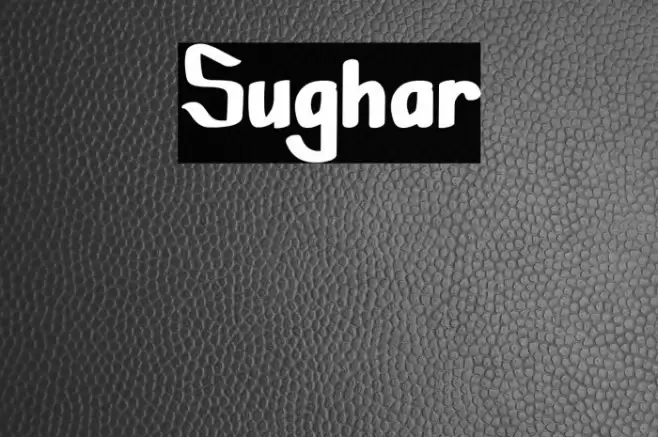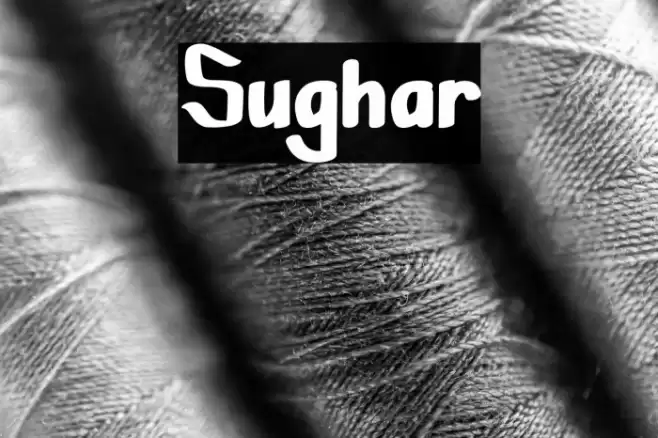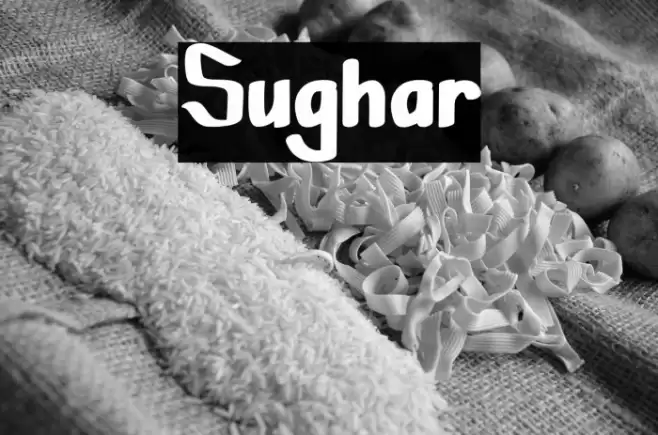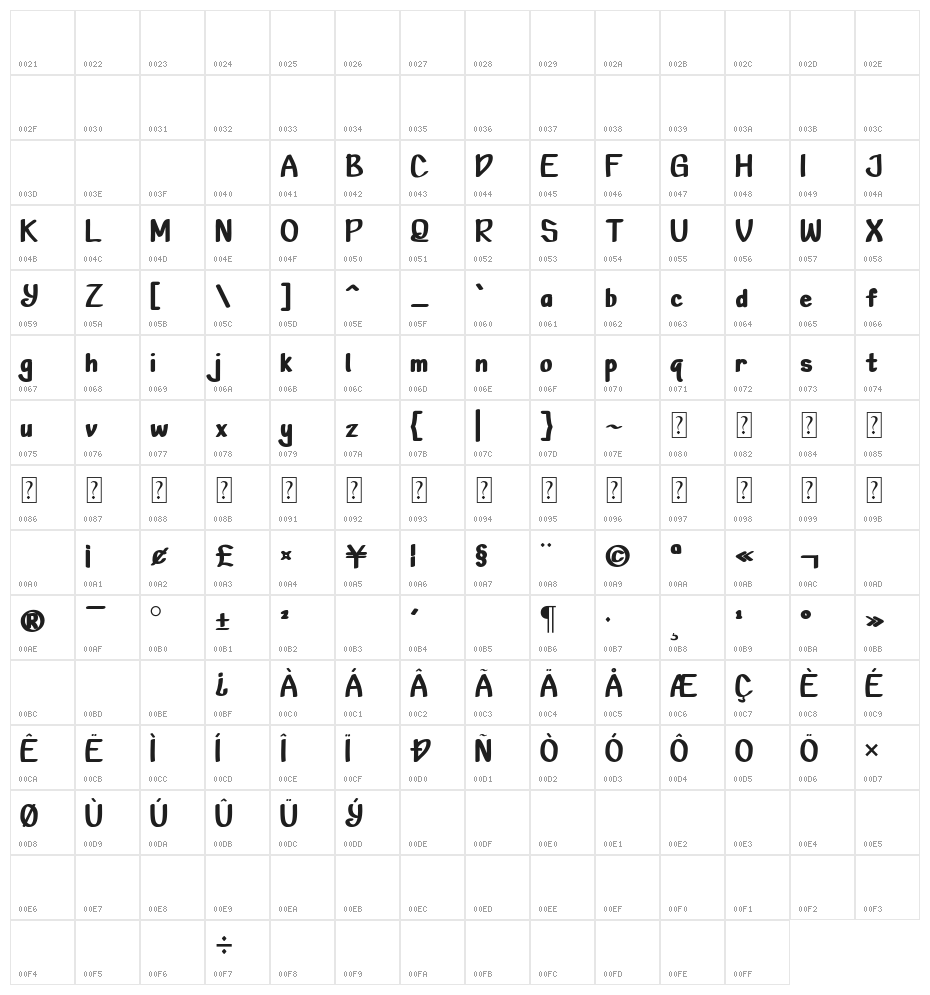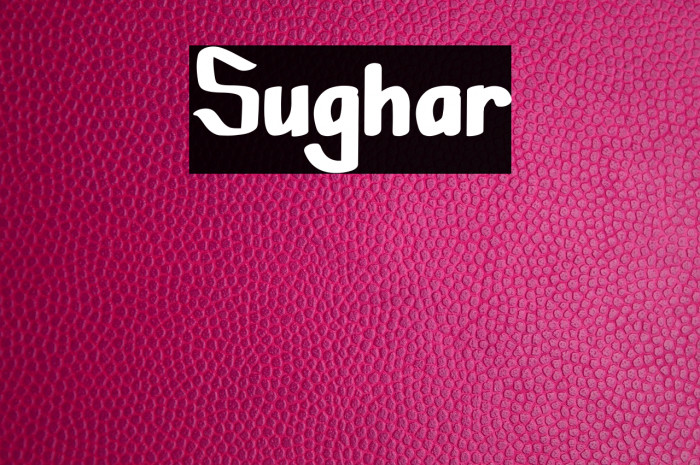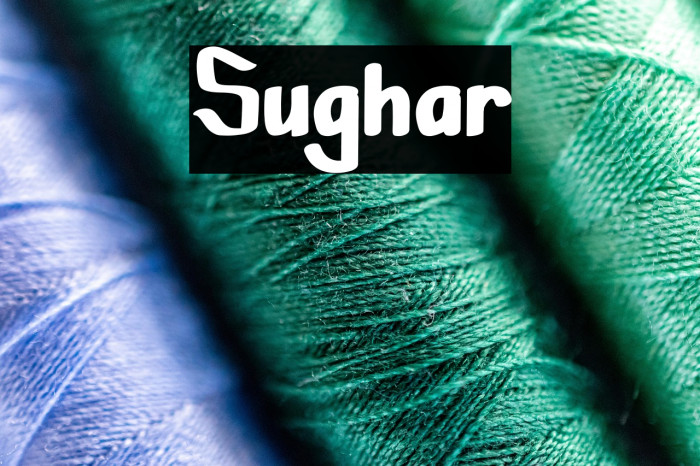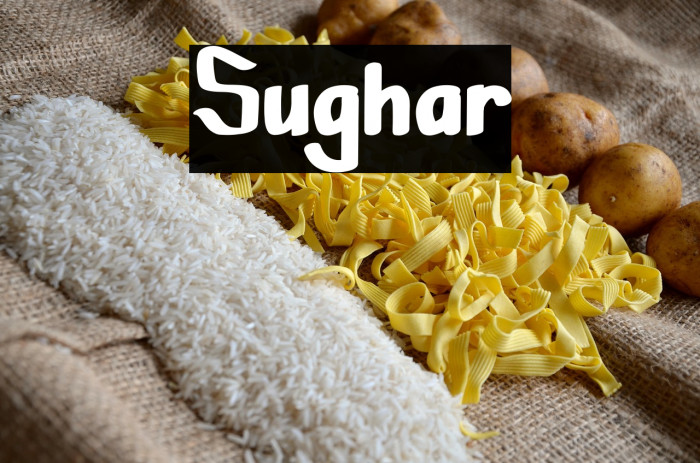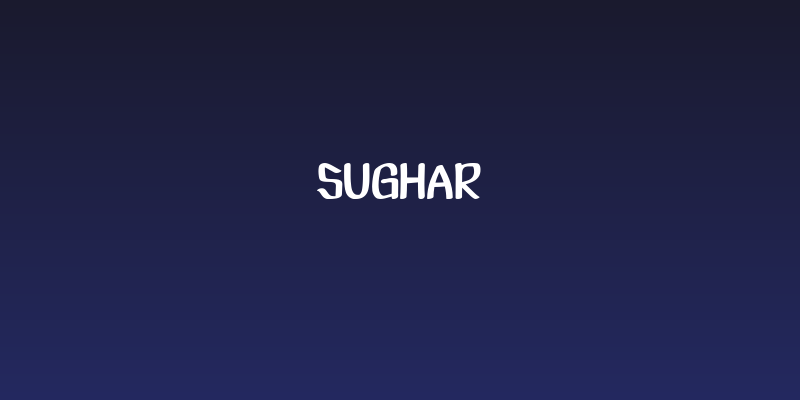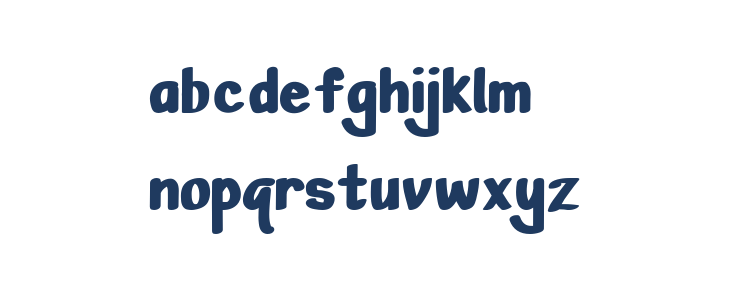
Sughar Font
Sughar Description
This font features a playful and bold style with a handwritten touch. The uppercase letters are slightly wider with rounded edges, giving a friendly and approachable feel. The lowercase letters maintain the same playful aesthetic, with some characters like 'g' and 'y' having unique, artistic tails. The numbers and special characters are consistent with the overall style, ensuring a cohesive look. This font is ideal for projects that require a fun and informal tone, such as children's books, party invitations, or playful branding materials.
A playful, bold, and handwritten-style font with rounded edges from Regular fonts.
- Proposed Projects: Children's books, party invitations, playful branding materials.
- Overall Style: Playful